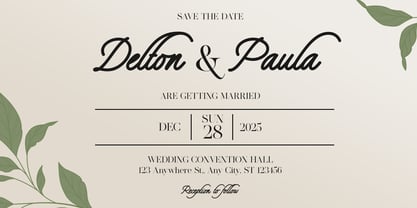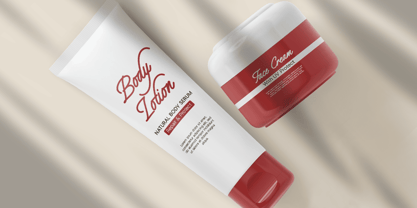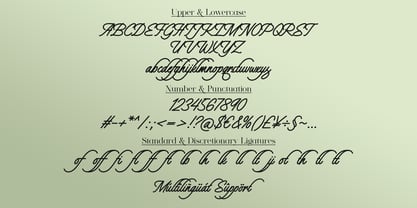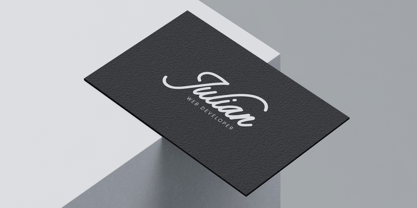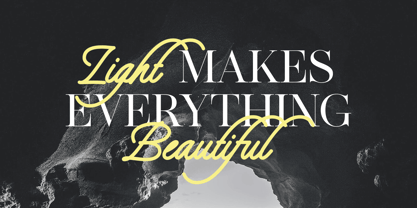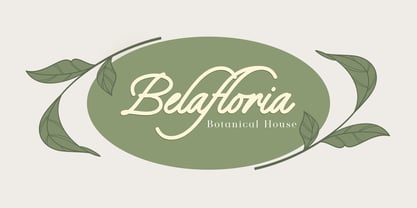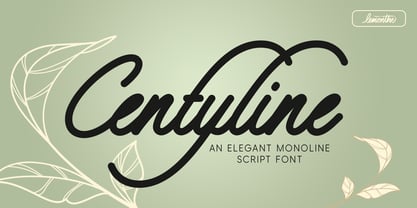
Centyline
by Lemonthe
The Centyline Font Family was designed by Dwi Ahidian and published by Lemonthe. Centyline contains 1 styles.
Centyline is a monoline script font with a clean and elegant design. With smooth and consistent strokes, this font is suitable for various design needs such as branding, logos, invitations, product packaging, and other creative projects. With a modern look yet easy to read, Centyline adds a professional and stylish touch to any design project.